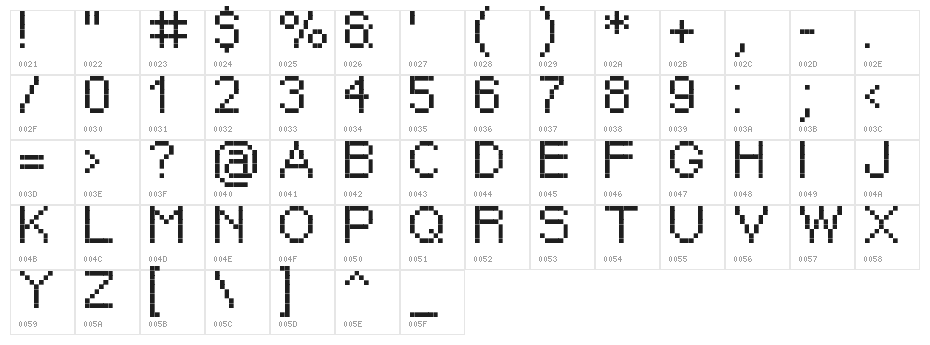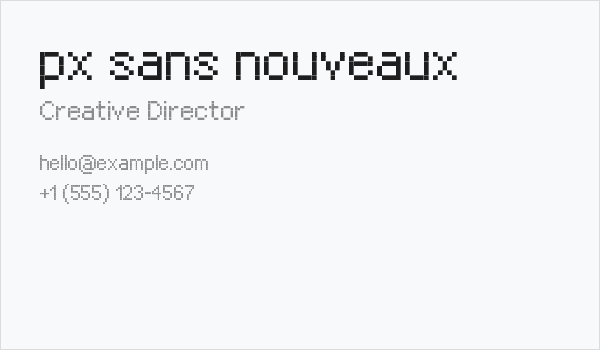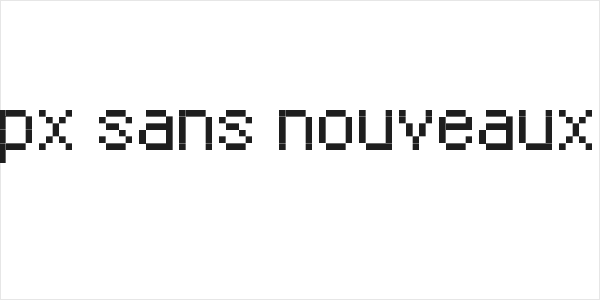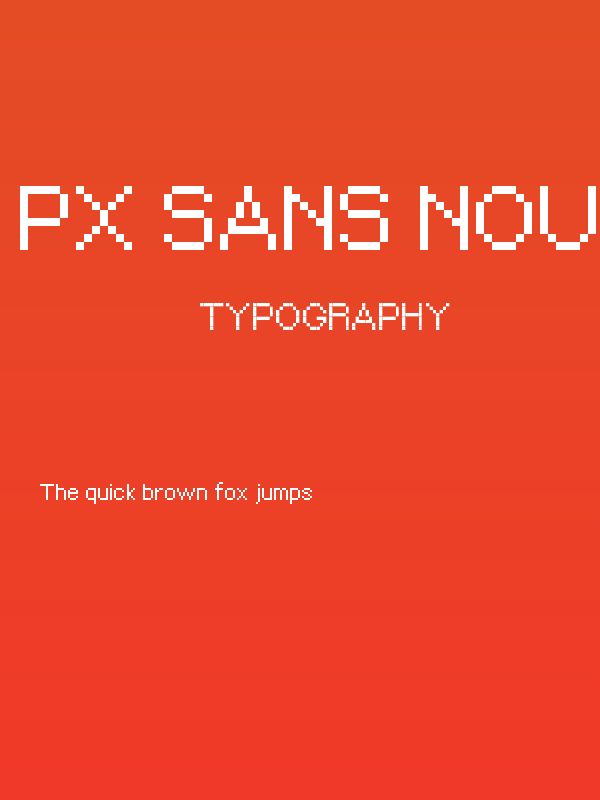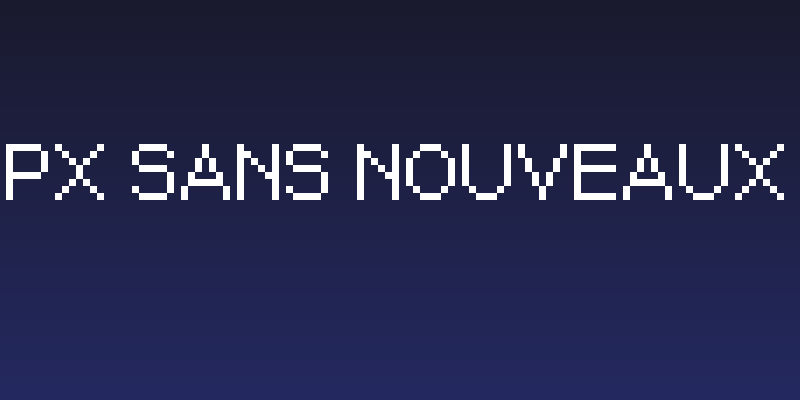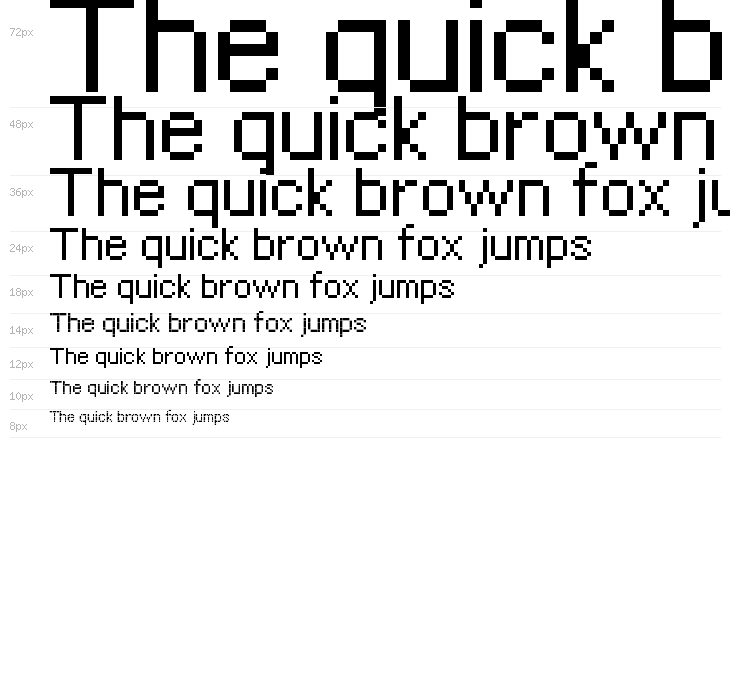
px sans nouveaux Font
px sans nouveaux Description
This font features a pixelated, grid-like structure that evokes a retro, digital aesthetic reminiscent of early computer graphics. Each character is composed of uniform square blocks, giving it a distinctly geometric and modular appearance. The uppercase and lowercase letters maintain consistent proportions, while the numerals and special characters follow the same pixelated design. This style is highly legible and straightforward, making it suitable for digital displays and projects that aim to capture a vintage tech vibe.
| Use Case | Logos, Headlines, Digital displays |
| Proposed Projects | Ideal for retro video game graphics, digital art projects, tech-themed designs, and any creative work that seeks to evoke nostalgia for early computer interfaces. |